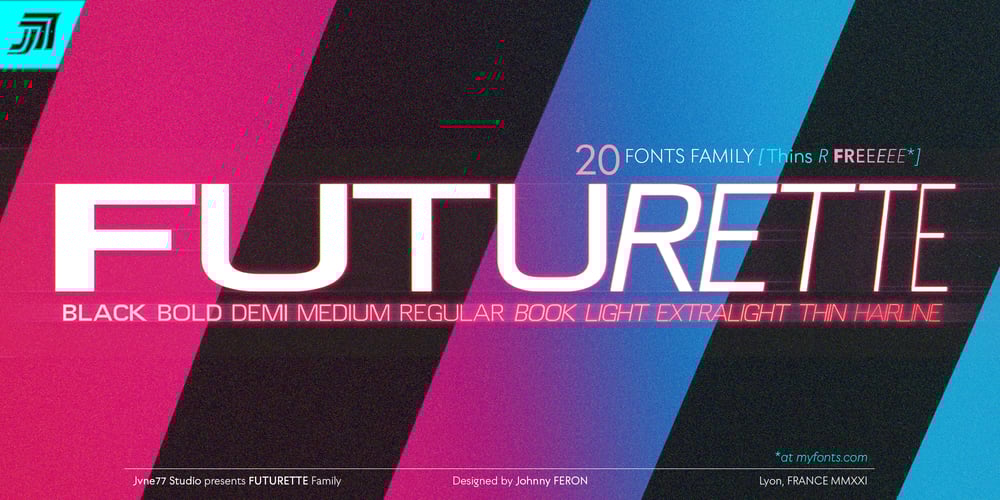
Futurette Font Family was designed by Johnny Feron and published by Jvne77 Studio. Futurette contains 20 styles and family package options. Futurette is a large weight family, covering all your needs for futuristic or sport projects, logos and others. Each style comes with 409 glyphes and can be used for Display titling, but in text also well.It was inspired by a bunch of 70’s and 80’s types like Handel Gothic or the ITC Bolt, and more recent faces like Typodermic’s Conthrax and Good Times…